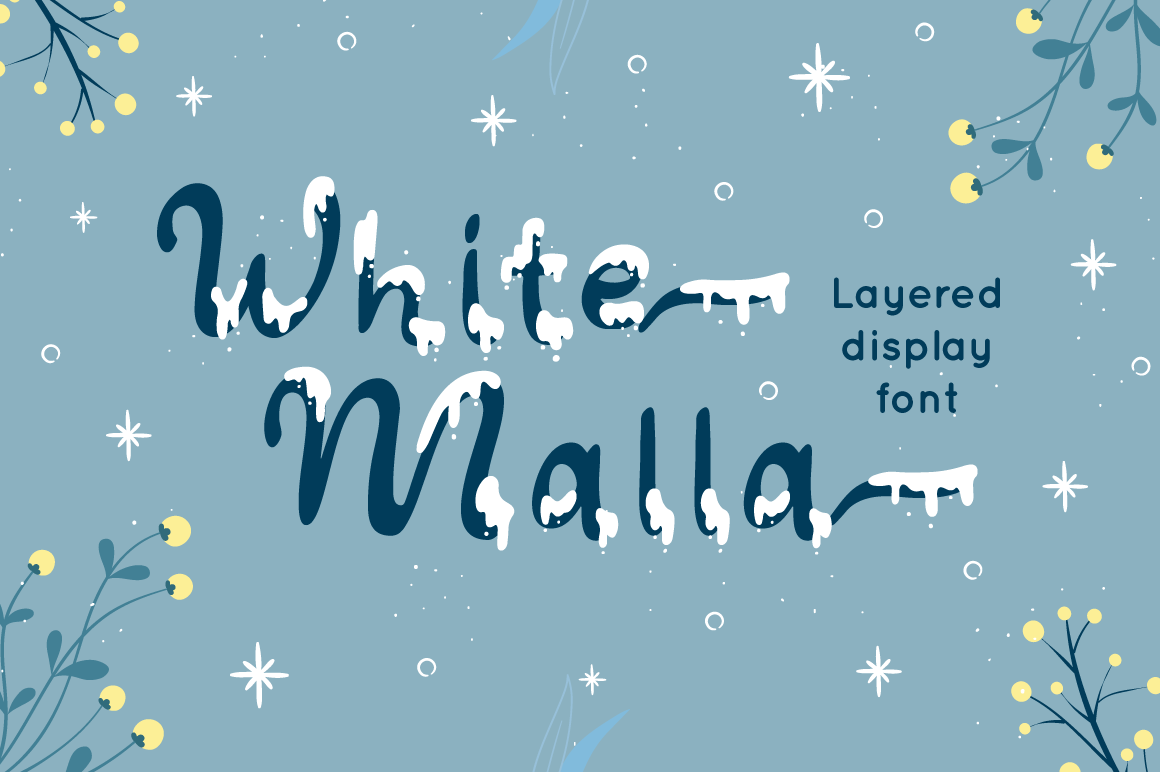
White Malla - Christmas Font
White Malla is Layered Script Font with swash on ending word. This font perfect for winter & Christmas theme design. Combine it with White Malla ending swash to make perfect design for yor projects.
White Malla perfect for Winter & Christmas promotion, wedding invitation, branding, logo, invitation, stationery, social media post, product packaging, merchandise, blog design, game titles, cute style design, Book/Cover Title and more.